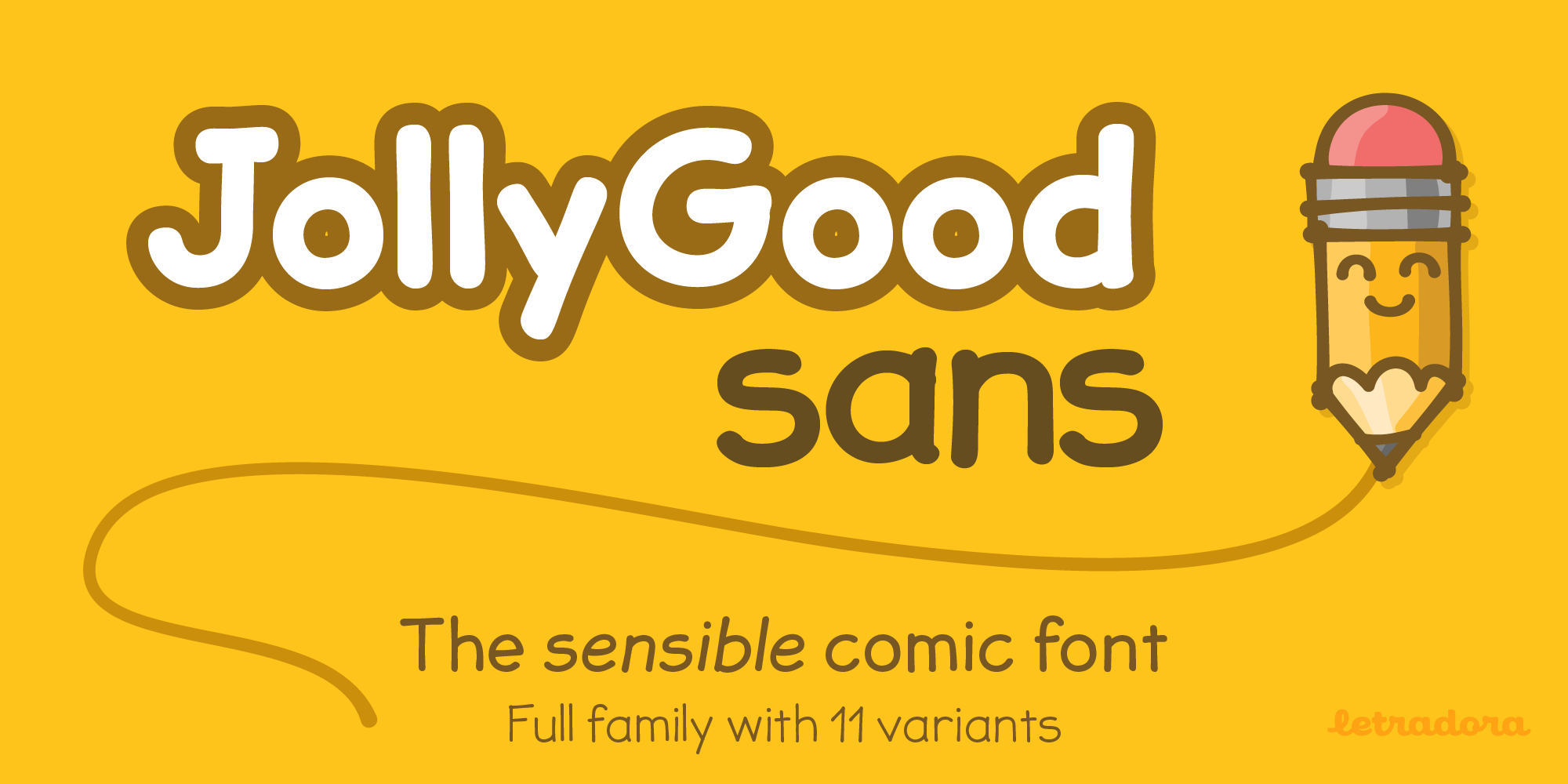
JollyGood Sans Font is perfect for children's book publishing, toy packaging design, playful brand identities, educational materials, family-friendly websites, cheerful greeting cards, and fun marketing campaigns that require approachable, friendly typography.
This font is exciting because it captures pure joy and optimism through carefully crafted letterforms that radiate warmth and playfulness, creating instant emotional connections while maintaining professional readability across all design applications.
The JollyGood Sans Font family includes light, regular, and bold weights with rounded alternatives, offering uppercase and lowercase letters, playful numerals, whimsical punctuation marks, and decorative elements that enhance its cheerful personality.
Design professionals consistently choose JollyGood Sans Font Free Download for projects requiring positive energy and approachable communication. This delightful typeface transforms ordinary text into engaging visual experiences that immediately uplift audiences and create memorable brand interactions. The font's friendly character makes it exceptionally effective for educational content, children's products, and family-oriented services where trust and accessibility are paramount. Its versatile nature adapts seamlessly to both digital and print applications, ensuring consistent brand warmth across all touchpoints. The thoughtfully designed letterforms maintain their cheerful appeal while preserving excellent legibility in both headlines and body text, making it ideal for comprehensive brand systems. Whether you're developing educational resources, creating family entertainment marketing, or designing community-focused campaigns, this typeface delivers the authentic positivity and visual charm that distinguishes caring brands from corporate competitors, establishing immediate rapport with audiences seeking genuine, heartwarming communication that celebrates life's simple pleasures.